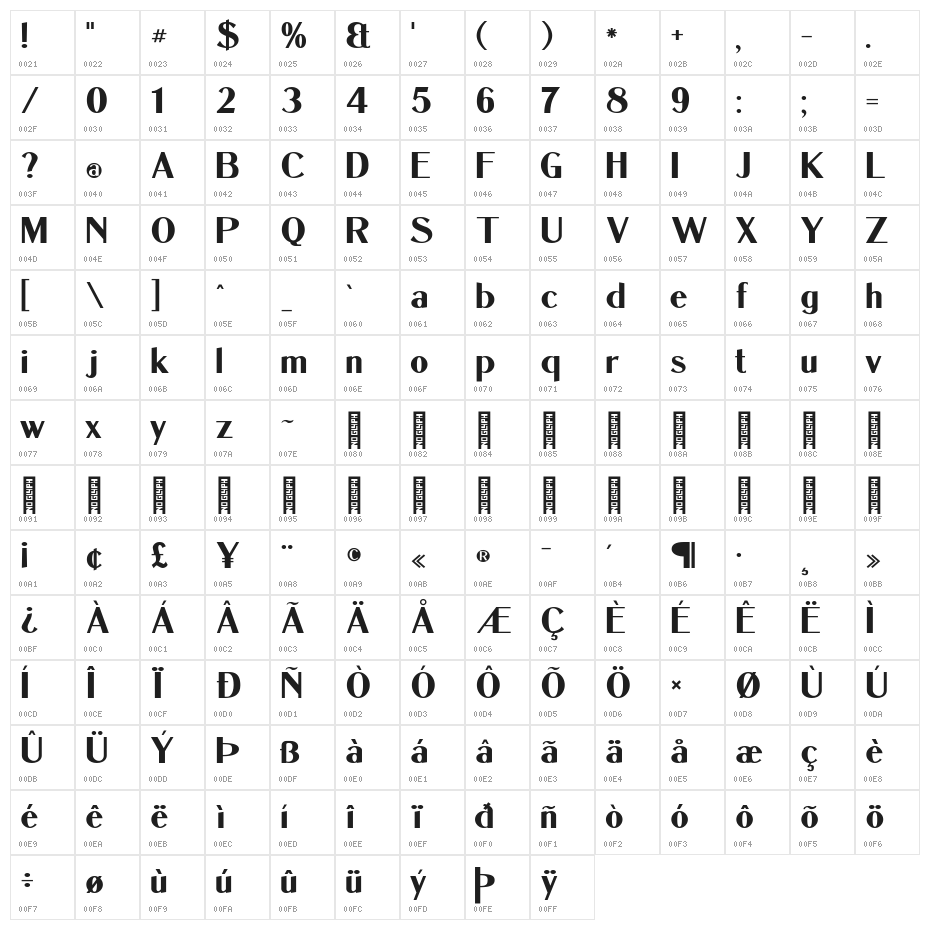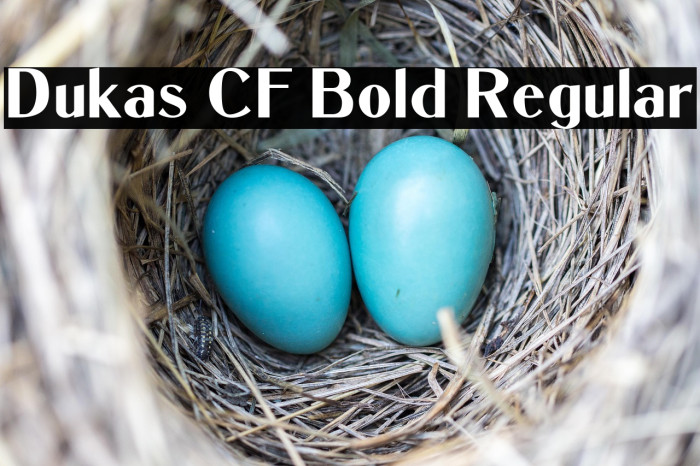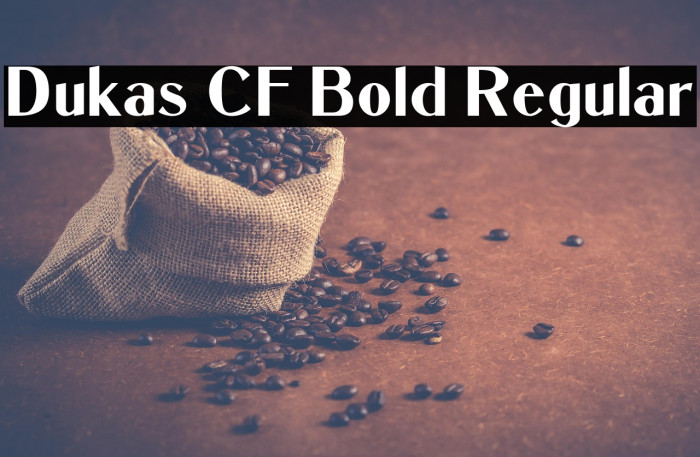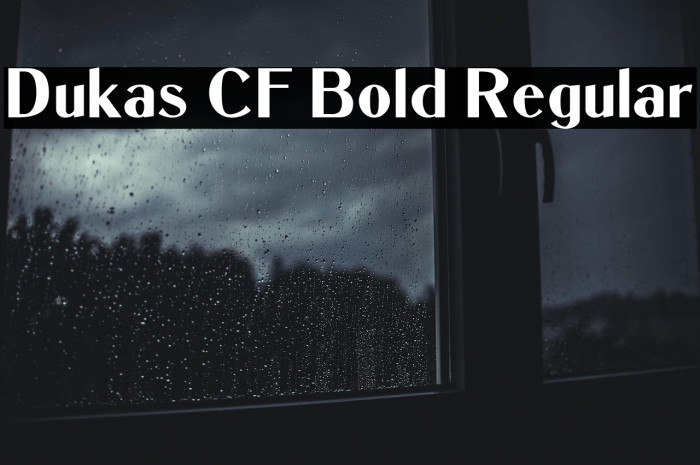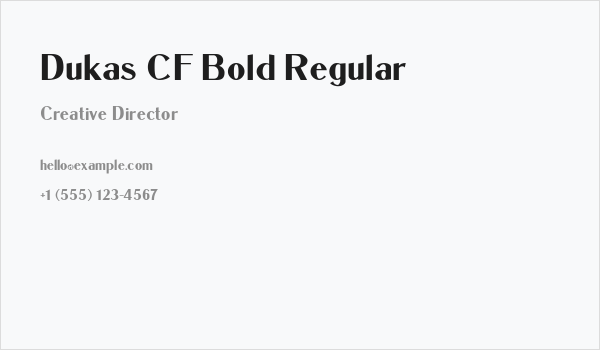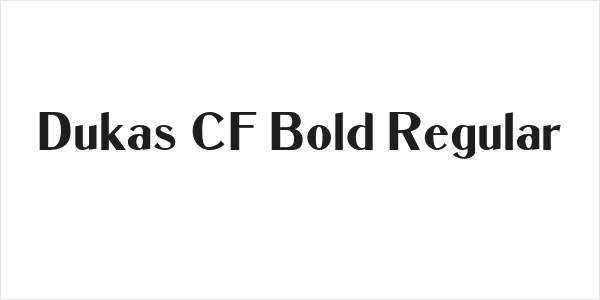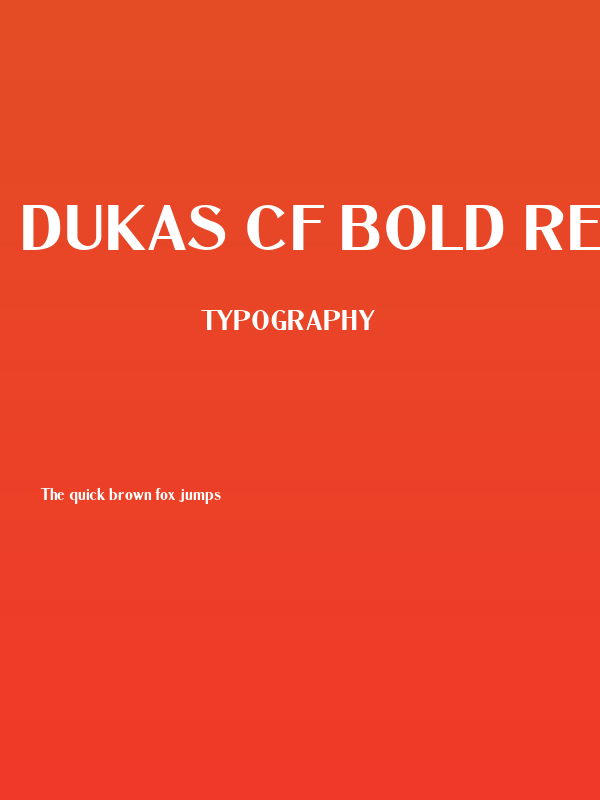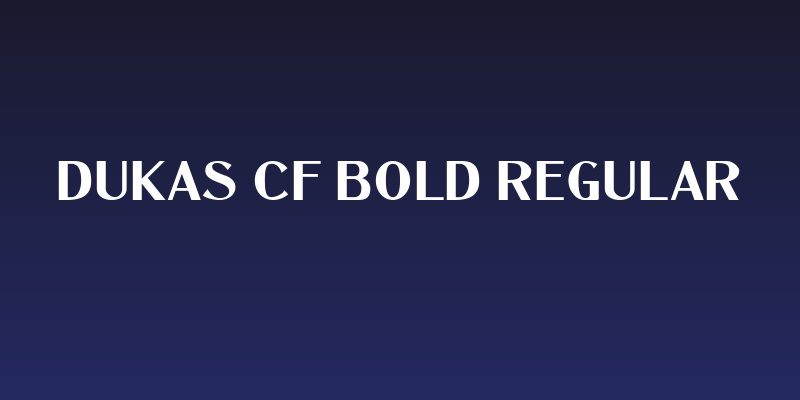
Dukas CF Bold Regular Font
Dukas CF Bold Regular Description
This font features a bold and commanding presence with its strong, thick strokes and slightly condensed letterforms. The uppercase letters are particularly striking, with a robust and authoritative appearance, while the lowercase letters maintain a consistent weight that complements the overall design. The numerals are clear and legible, making them suitable for various applications. The special characters are well-integrated, adding versatility to the font's use. Its bold nature makes it ideal for making a statement, whether in headlines, logos, or other prominent text displays.
Proposed ProjectsIdeal for headlines, branding, posters, and any design requiring a bold statement.